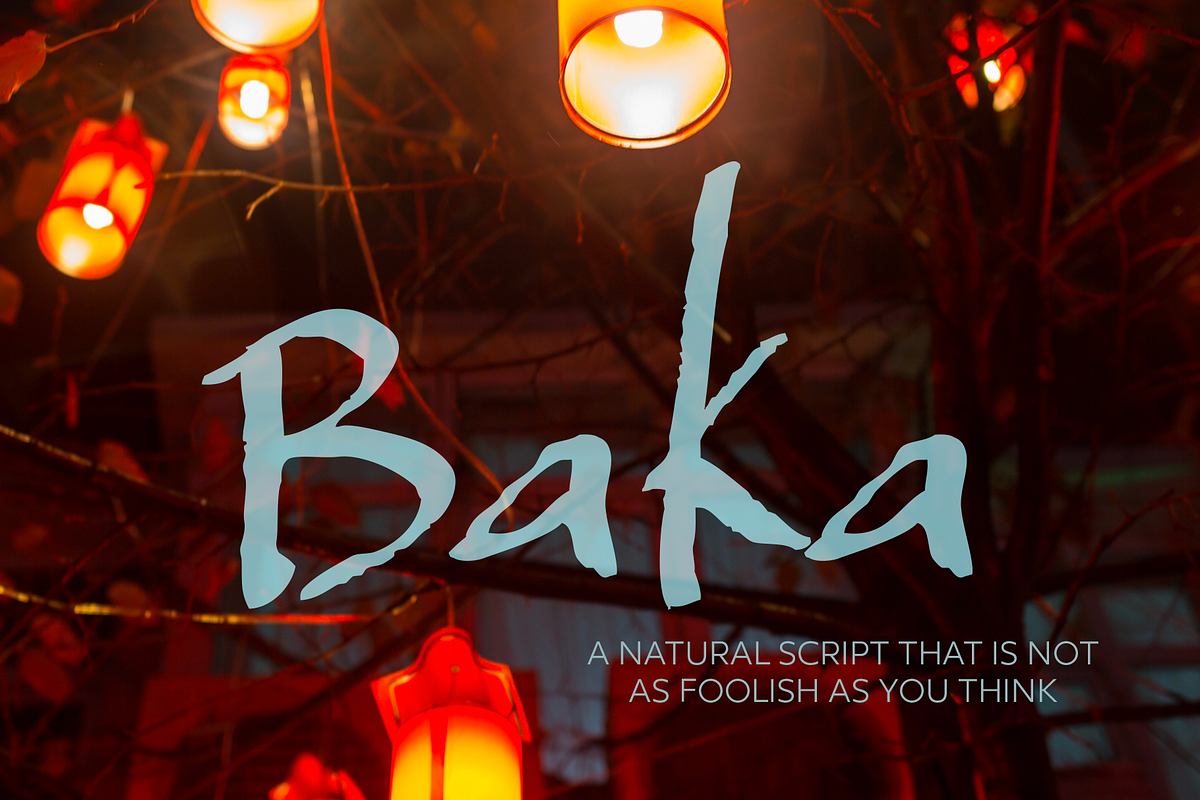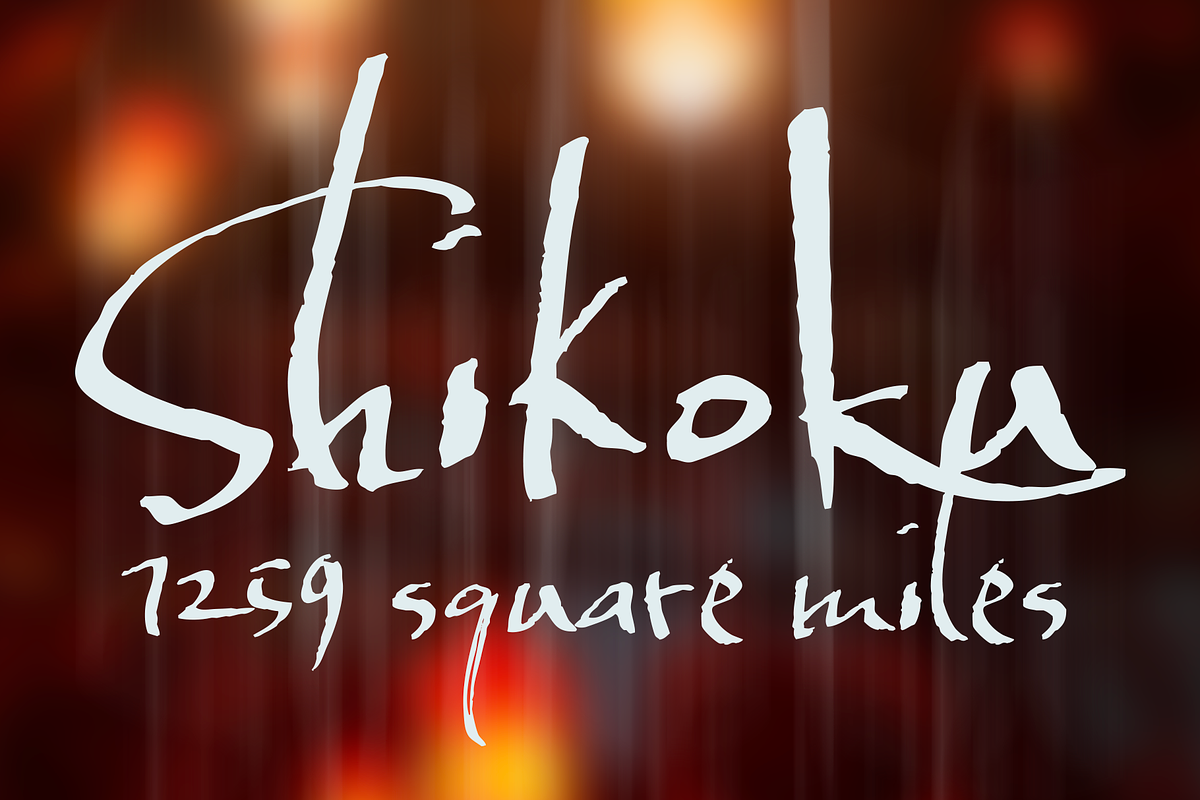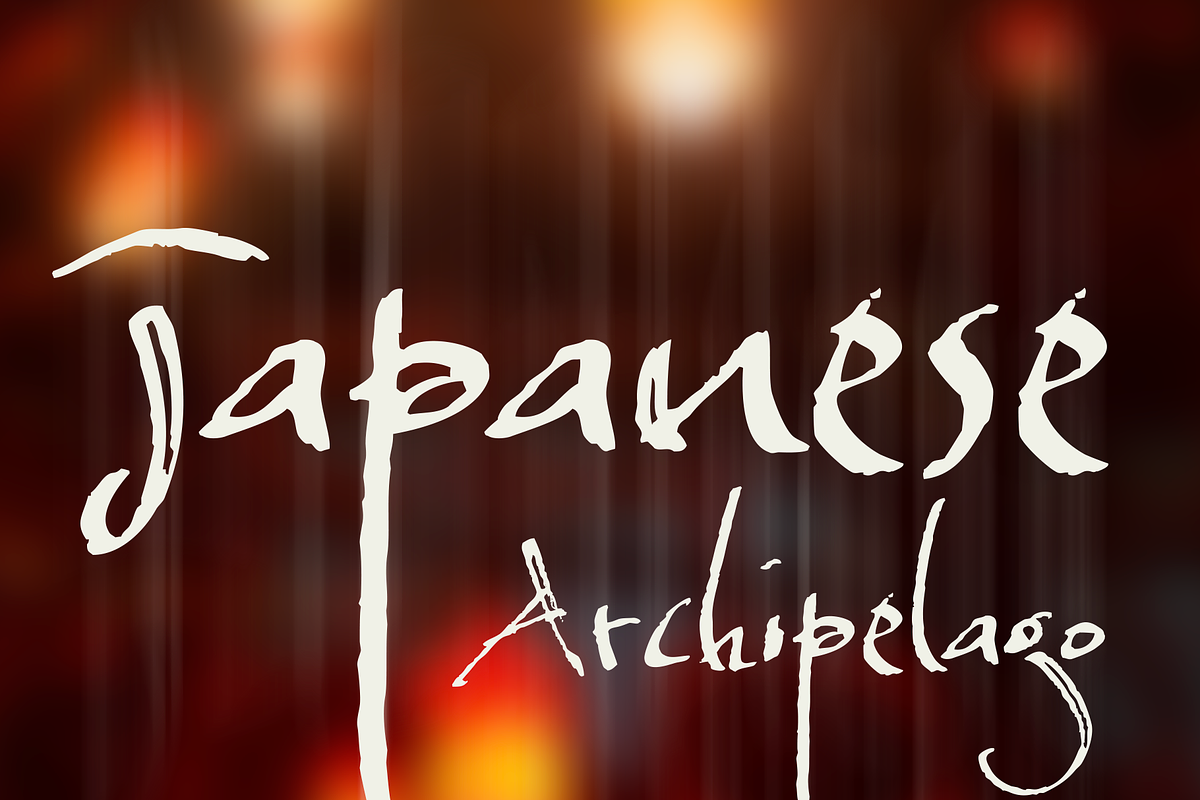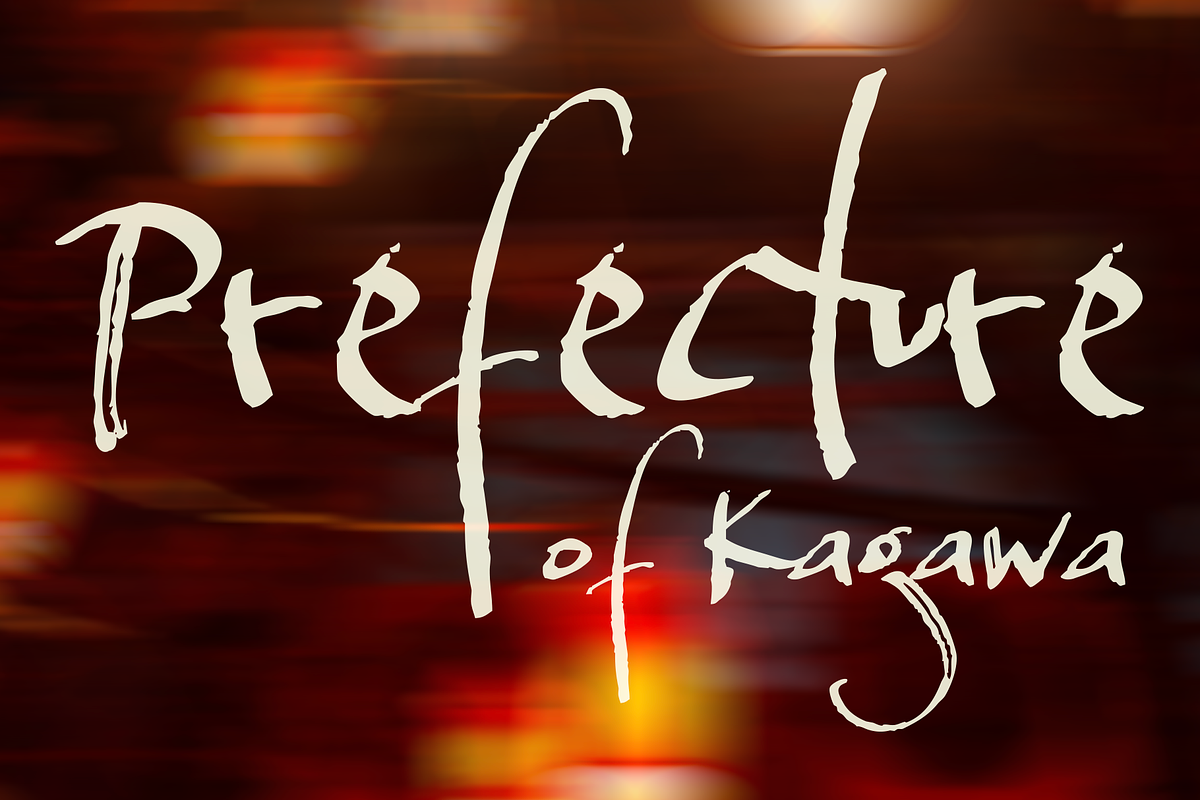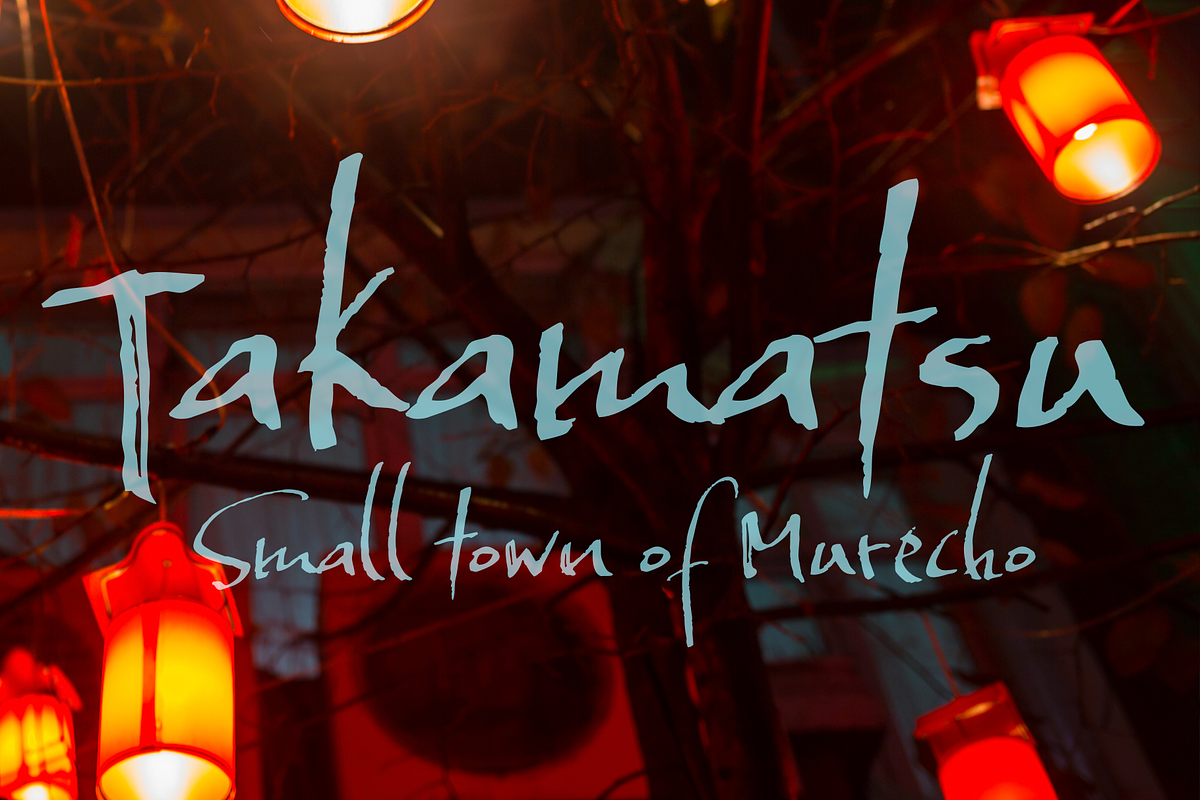
Baka Script Typeface
Baka explores relaxed script writing using a fountain pen with an angled nib on Crane's paper.
As part of Neil Summerour &Positype's Relaxed Script Font Series, this typeface features a number of OpenType features that includes a number of Stylistic, Swash, and even Titling alternates. These typefaces are expertly craft and perfect for any use where you are wanting a personal or casual touch, including: invitations, weddings, social media, packaging, branding, stationery, and print advertising.